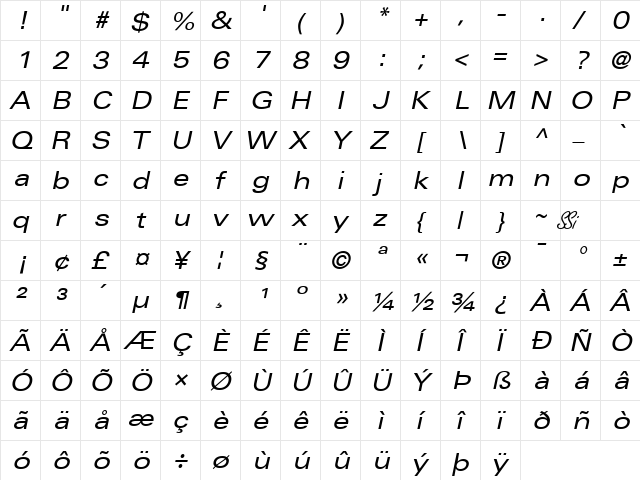
Nova Expanded SSi Expanded Italic
Design Context for Nova Expanded SSi Typeface
Nova Expanded SSi is a composed and adaptable typeface that performs quietly and consistently across a wide range of design contexts. The dynamic lean of this cut emphasises speed and emphasis in any layout.
Pro Tip: Use Nova Expanded SSi for emphasis, pull quotes, and subheadings where its slanted energy can add rhythm to the layout.